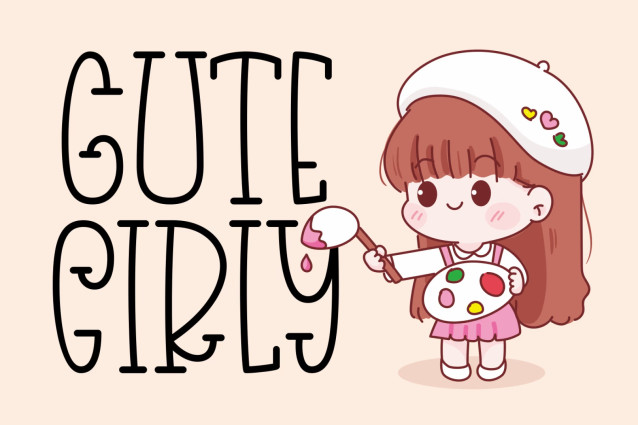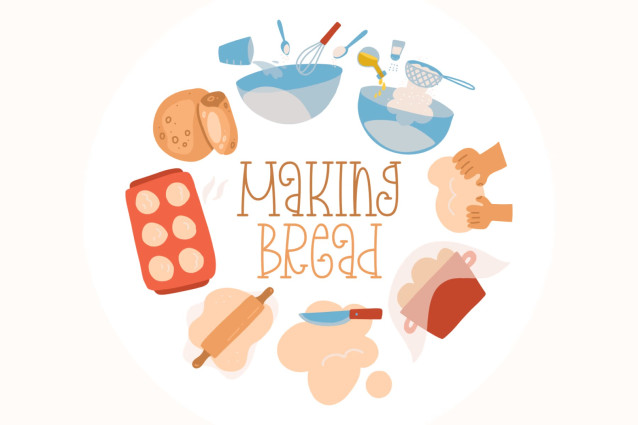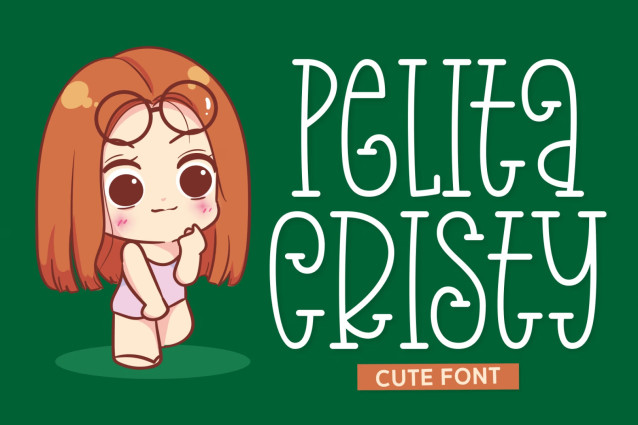
Pelita Cristy Font
Pelita Cristy is a playful and charming serif font, perfect for informal projects or anything children-related. Bring any text to life with this adorable typeface!